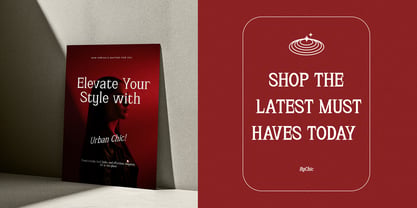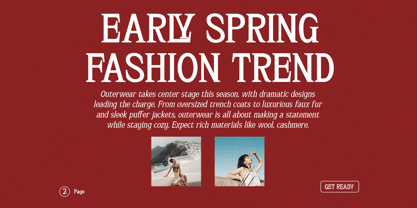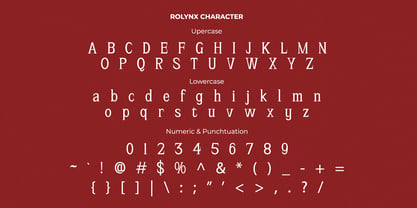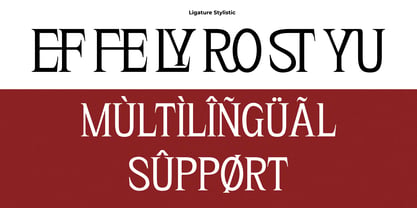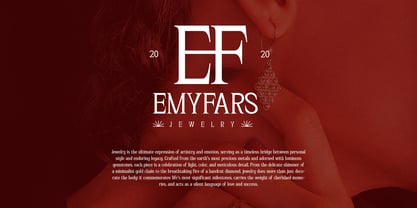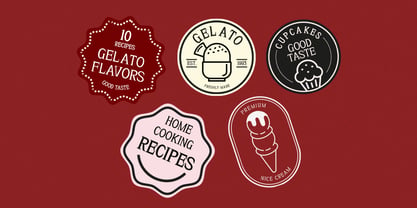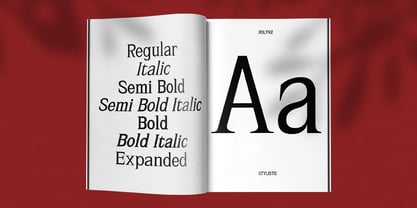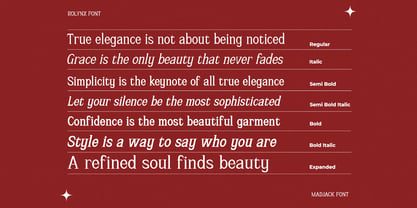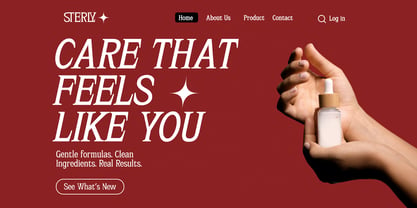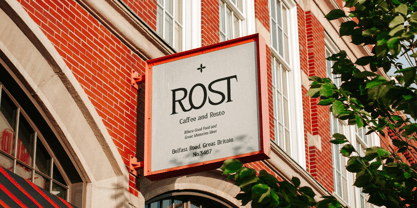
Rolynx
The Rolynx Font Family was designed by Zaki Muhammad and published by madjack.font. Rolynx contains 8 styles and family package options. More about this family
We're proud to present Rolynx, a modern and classic serif typeface from Storytype, with a unique style and modern look. This typeface is perfect for elegant and luxurious logos, book or movie title designs, fashion brands, magazines, apparel, calligraphy, quotes, and much more.
Standard Ligatures Style Sets Multilingual Support PUA Encoding Numbers and Punctuation